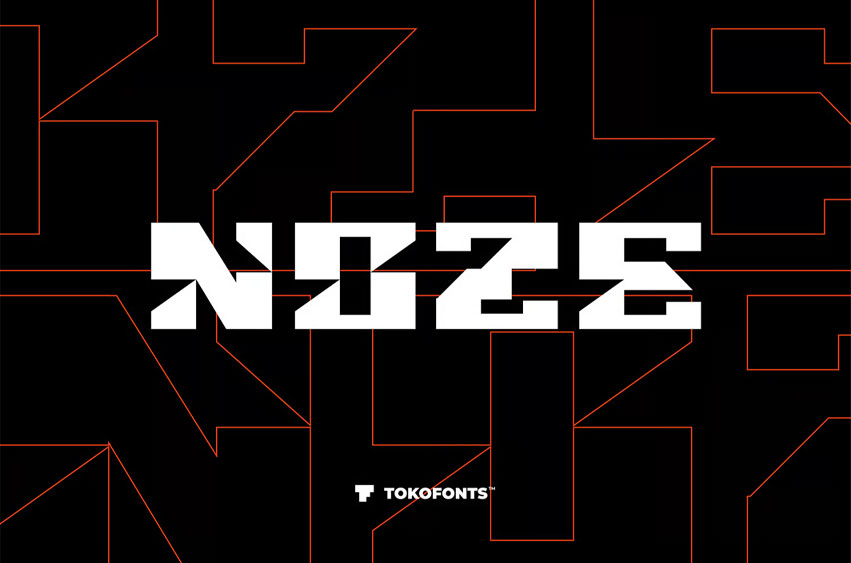
Noze Font
Noze Font is a bold and dynamic display typeface designed to capture the intensity of sport and high-performance visuals. With its sharp angles and strong geometric structure, this font is perfect for racing concepts, gym branding, and athletic identities that demand power and precision. Whether used for baseball graphics, football promotions, basketball campaigns, or soccer visuals, Noze delivers a sporty and aggressive style that stands out instantly.
Built for speed and impact, Noze font performs exceptionally across race themes, fitness branding, golf events, and hockey designs that require strength and clarity. Its bold character ensures high readability while maintaining a competitive edge, making it ideal for logos, posters, and sports-related media. Noze stands as a modern sporty font that brings energy, motion, and confidence into every design.